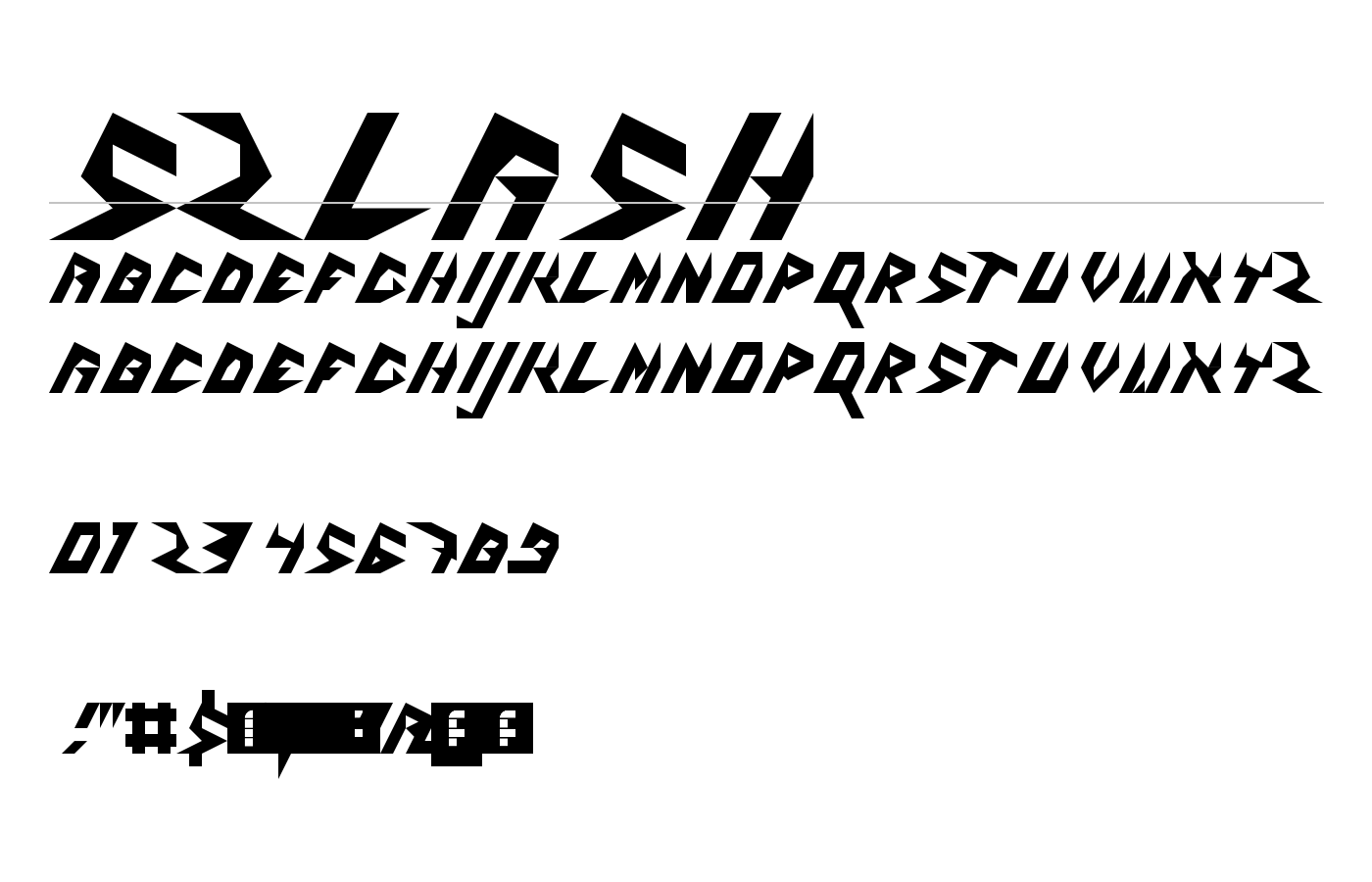
5Zlash is a bold, angular sans serif font with a futuristic and edgy vibe, characterized by sharp geometric shapes and dynamic slanted strokes. Its high contrast between thick and thin elements and its condensed width create a striking, energetic feel perfect for bold headlines, logos, and digital media that seek a modern, tech-inspired aesthetic. This font works especially well in creative branding and poster designs where a strong, unconventional look is desired.
5Zlash Font
About 5Zlash Font
| Font family | 5Zlash Font |
| Designer | Noah - 10 year old typomaniac |